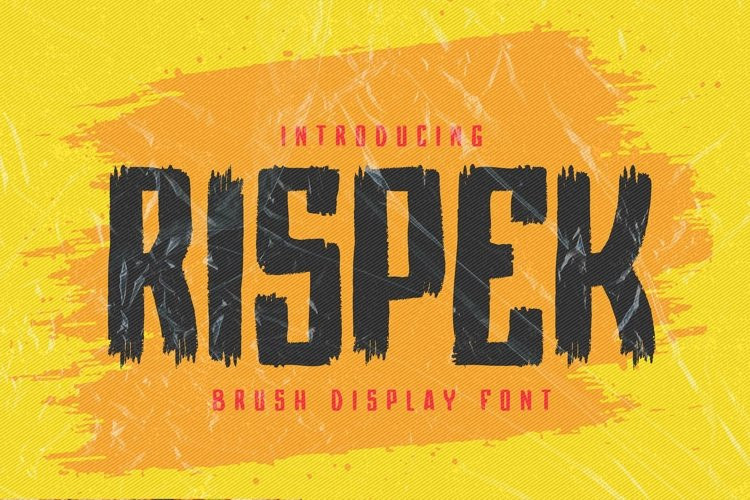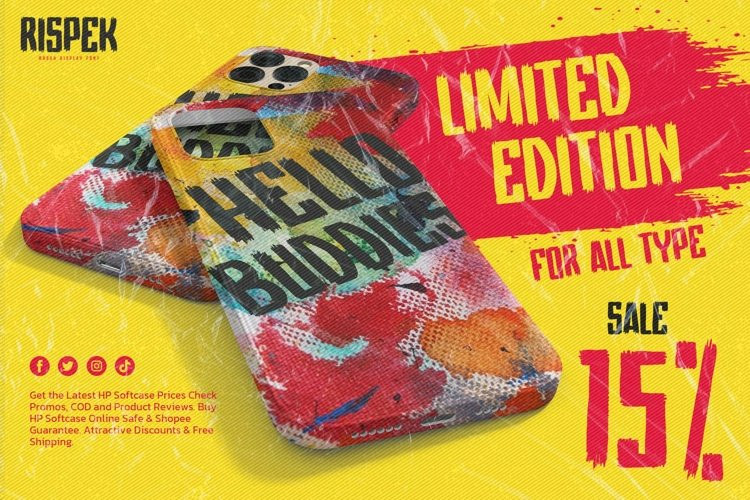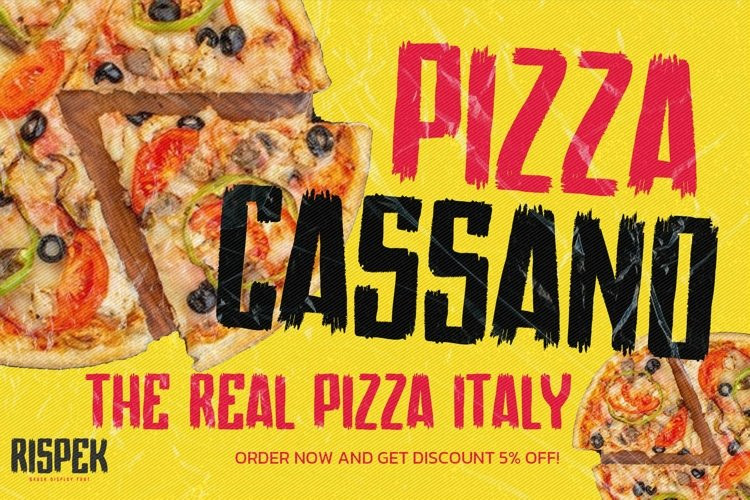
RISPEK Font
RISPEKRISPEKRISPEKHello Everyone, introduce our new product font RISPEK is a Brush Display Font.This is a Textured Natural Style and classy style with a clear style and dramatic movement.
This font RISPEK is great for your next creative project such as logos, printed quotes, invitations, cards, product packaging, headers, Logotype, Letterhead, Poster, Design this font is great for your creative projects such as watermark on photography, and perfect for logos & branding, invitation,advertisements,product designs, stationery, wedding designs,label ,product packaging, special events or anything that need handwritting taste.
That is RISPEK has charming, authentic and relaxed characteristic more natural look to your text